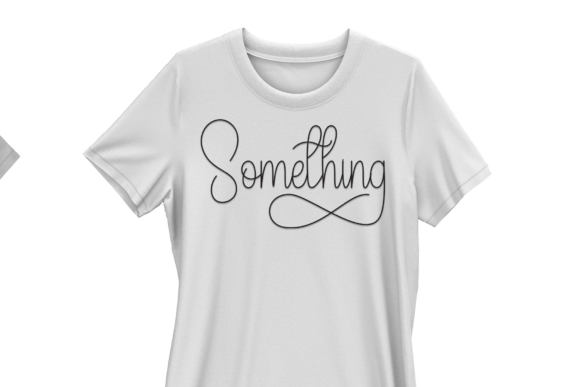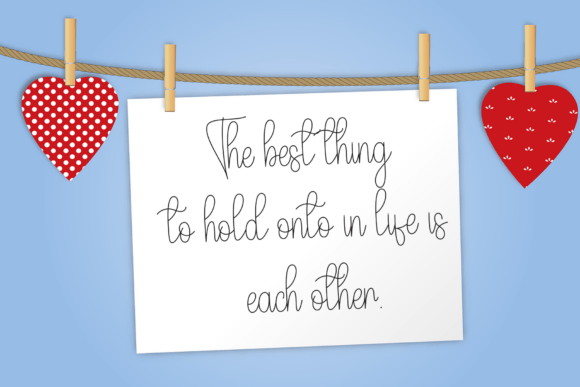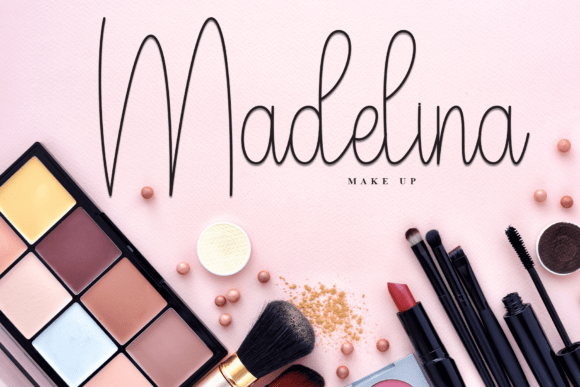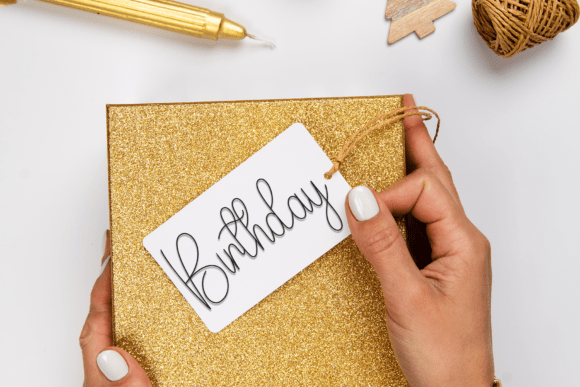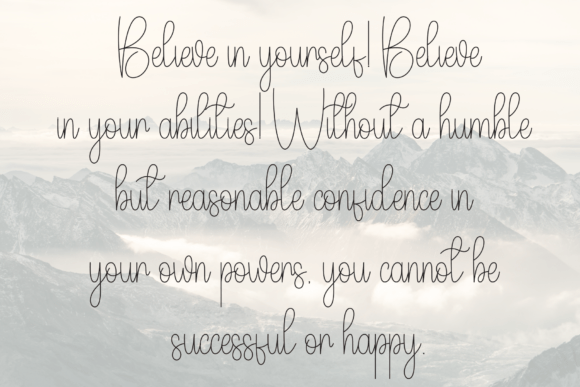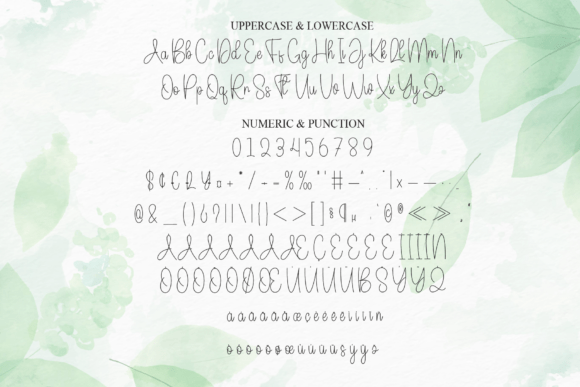
Introducing Amastay Font: Elevate Your Designs with Elegance and Playfulness
In the world of typography, fonts play a crucial role in conveying the tone and personality of a design. For designers and crafters looking to add a touch of sophistication and whimsy to their projects, Amastay Font is an excellent choice. This stylish handwritten script font seamlessly blends modern elegance with a playful touch, making it perfect for a wide range of applications.
The Unique Charm of Amastay Font
Amastay Font boasts fluid strokes and charming curves that bring a personal feel to any design. Its unique character lies in its ability to balance modern sophistication with a playful, approachable vibe. This makes it an ideal choice for designers who want to create a lasting impression on their audience. Whether you’re working on a logo, packaging, invitation, or any other project, Amastay Font is sure to add a touch of warmth and creativity.
Key Features of Amastay Font
- Handwritten Script Style: Amastay Font features a beautiful, handwritten script style that adds a personal touch to any design.
- Modern Elegance: Its fluid strokes and charming curves give it a modern, elegant feel that’s perfect for sophisticated designs.
- Playful Touch: Despite its elegance, Amastay Font has a playful side that makes it suitable for a wide range of creative projects.
- Versatility: This font is ideal for various applications, including logos, packaging, invitations, and more.
Amastay Font is a versatile typeface that’s perfect for designers and crafters looking to elevate their projects. Its unique blend of elegance and playfulness makes it suitable for:
- Logo Design: Create a lasting impression with a custom logo that showcases your brand’s personality.
- Packaging Design: Add a touch of sophistication and whimsy to your product packaging.
- Invitation Design: Make your invitations stand out with a beautiful, elegant script font.
- Stationery and Branding: Use Amastay Font to create a cohesive brand identity that reflects your values and personality.
- Unique Style: Amastay Font offers a unique blend of modern elegance and playfulness that’s hard to find in other fonts.
- High-Quality Design: This font is designed with high-quality craftsmanship, ensuring that it looks great in any design.
- Easy to Read: Despite its elegant style, Amastay Font is easy to read, making it perfect for body text and headings.
- Customizable: Use Amastay Font to create a custom design that reflects your brand’s personality and style.
In conclusion, Amastay Font is a stylish handwritten script font that offers a unique blend of modern elegance and playfulness. Its fluid strokes and charming curves make it perfect for designers and crafters looking to add a personal touch to their projects. With its versatility, high-quality design, and ease of use, Amastay Font is an excellent choice for anyone looking to elevate their designs.